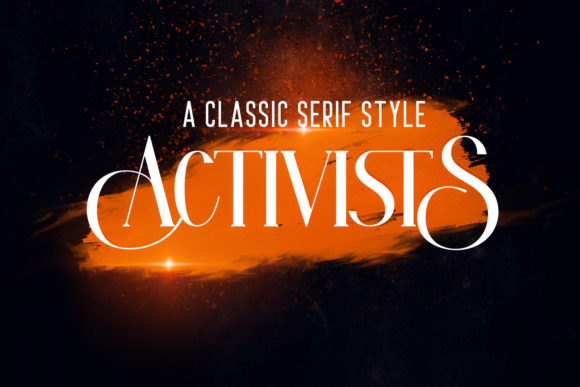
The Designer’s Delight: Activists Font
I still remember the frustration of working on a project, pouring my heart and soul into every detail, only to hit a roadblock when it came to finding the perfect font. My client wanted something classic, yet elegant; something that would make their brand stand out from the crowd. And that’s when I stumbled upon the Activists font – a tall, classic styled serif font that has since become a staple in my design toolkit.
• ✨ PUA Encoding: The Activists font is PUA encoded, which means I can access all glyphs and swashes with ease! No more tedious searching for the perfect character.
• ✅ Classic Style: The font’s classic serif style gives my designs a timeless feel that’s hard to achieve with more modern fonts.
• 💫 Endless Possibilities: With its wide range of glyphs and swashes, I can experiment with different combinations to create unique and eye-catching designs.
While the Activists font is a powerhouse, there are a few things to keep in mind:
• 🤔 Glyph Overload: With so many glyphs and swashes to choose from, it’s easy to get overwhelmed. Take some time to explore the font and get familiar with its features.
The Story Behind Activists Font
The Activists font was designed with the intention of creating a classic, yet versatile font that could be used for a wide range of design projects. The designer, inspired by traditional serif fonts, aimed to create a font that was both elegant and approachable. With its PUA encoding and wide range of glyphs and swashes, the Activists font has become a go-to choice for designers looking for a reliable and stylish font.
Q: Is the Activists font suitable for body text?
A: While the Activists font is a beautiful font, it’s best suited for headlines and titles. For body text, you may want to consider a font with a more traditional serif style.